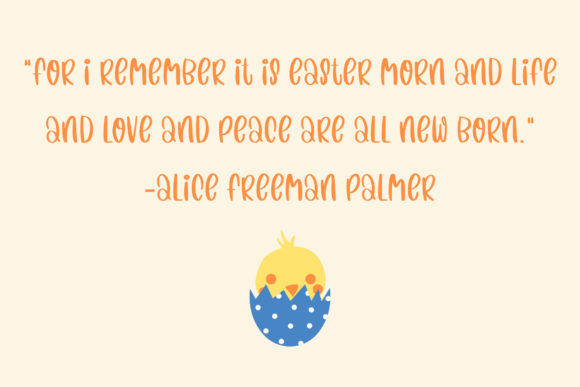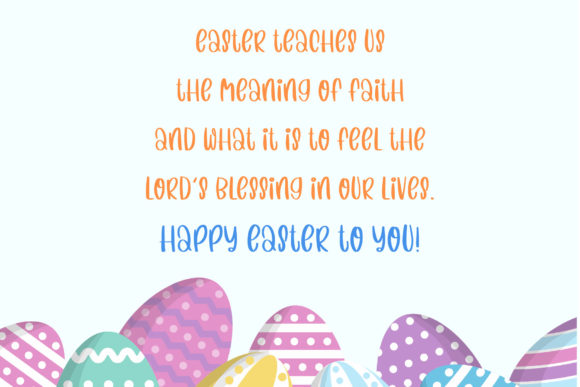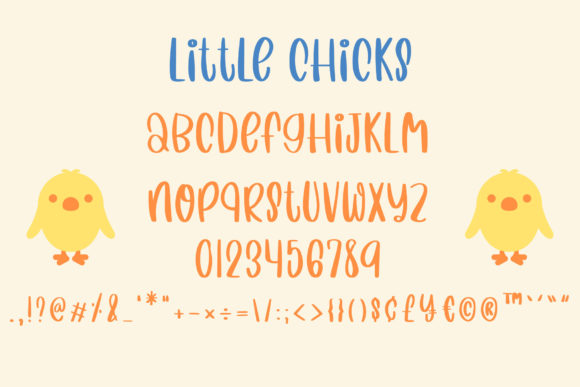
Introduction to Little Chicks Font
Remember the excitement of creating handmade cards for your parents or drawing colorful posters for your classroom? The Little Chicks Font is a nostalgic and endearing design element that captures the essence of childhood creativity. Its playful and authentic nature makes it the perfect choice for any children’s activity or school project.
As a designer, you’re constantly on the lookout for unique and high-quality design resources to elevate your creative project. The Little Chicks Font is a valuable addition to your design arsenal, offering a transparent background that allows for seamless integration with any design. Its free download feature makes it an accessible design resource for designers of all levels.
Key Features of Little Chicks Font
- High-quality design: This font features a high-quality design that is perfect for use in a variety of creative projects, from children’s books to educational materials.
- Transparent background: The Little Chicks Font has a transparent background, allowing for easy customization and use on different backgrounds.
- Unique characteristics: The Little Chicks Font features a unique, hand-drawn design that is sure to add a touch of whimsy to any creative project.
- Perfect for children’s projects: The font’s playful design makes it perfect for use in children’s projects, from educational materials to party invitations.
Honest Review: Little Chicks Font
As a designer, I’m always on the lookout for high-quality design resources to elevate my creative projects. Recently, I stumbled upon the Little Chicks Font, and I was excited to give it a try.
What works well with this font is its playful and whimsical feel, perfect for projects that require a lighthearted touch. The font’s clean and simple design makes it easy to read, even at small sizes. ✨ The transparent background option is also a great feature, allowing for seamless integration with any design element.
The font’s free download makes it an excellent choice for designers on a budget. However, there are a few limitations to consider. ⚠️ For one, the font’s character set is relatively limited, which may not be suitable for projects that require a wide range of characters. Additionally, the font’s scalability can be a bit rough at extreme sizes.
Overall, I’d say the Little Chicks Font is a solid choice for designers looking for a fun and easy-to-use font for their creative projects. While it may not be perfect, its strengths make it a valuable design resource.
- Pros: playful feel, clean design, transparent background, free download
- Cons: limited character set, scalability issues at extreme sizes
Tips for Getting the Most Out of Little Chicks Font
For a transparent background, use the font in combination with a background image or color. This will help the font stand out and create a visually appealing design. Additionally, use the font in conjunction with other design elements, such as icons and graphics, to create a cohesive and engaging design.
The Little Chicks Font is suitable for a variety of creative projects, including social media graphics, infographics, presentations, and reports. Its high-quality design and versatility make it an ideal design resource for both personal and professional use.